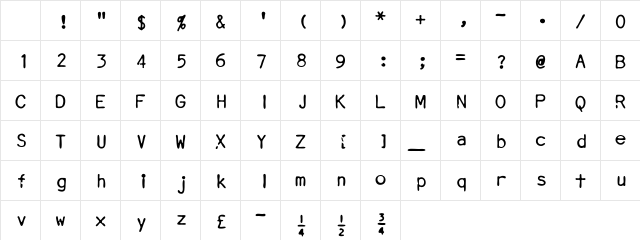
Complete Smith-Corona EC1100 Mini Gothic Regular glyph index. Displaying only characters natively supported by Smith-Corona EC1100 Mini Gothic Regular font.
Smith-Corona EC1100 Mini Gothic takes a clean, functional approach - its unadorned letterforms prioritise legibility and work reliably across screen and print environments.
Font Pairing: Works well alongside a characterful serif or display font that can carry the expressive load while Smith-Corona EC1100 Mini Gothic handles the functional copy.
Pro Tip: Use Smith-Corona EC1100 Mini Gothic for UI labels, navigation, and short-form body copy where clean legibility is the priority.